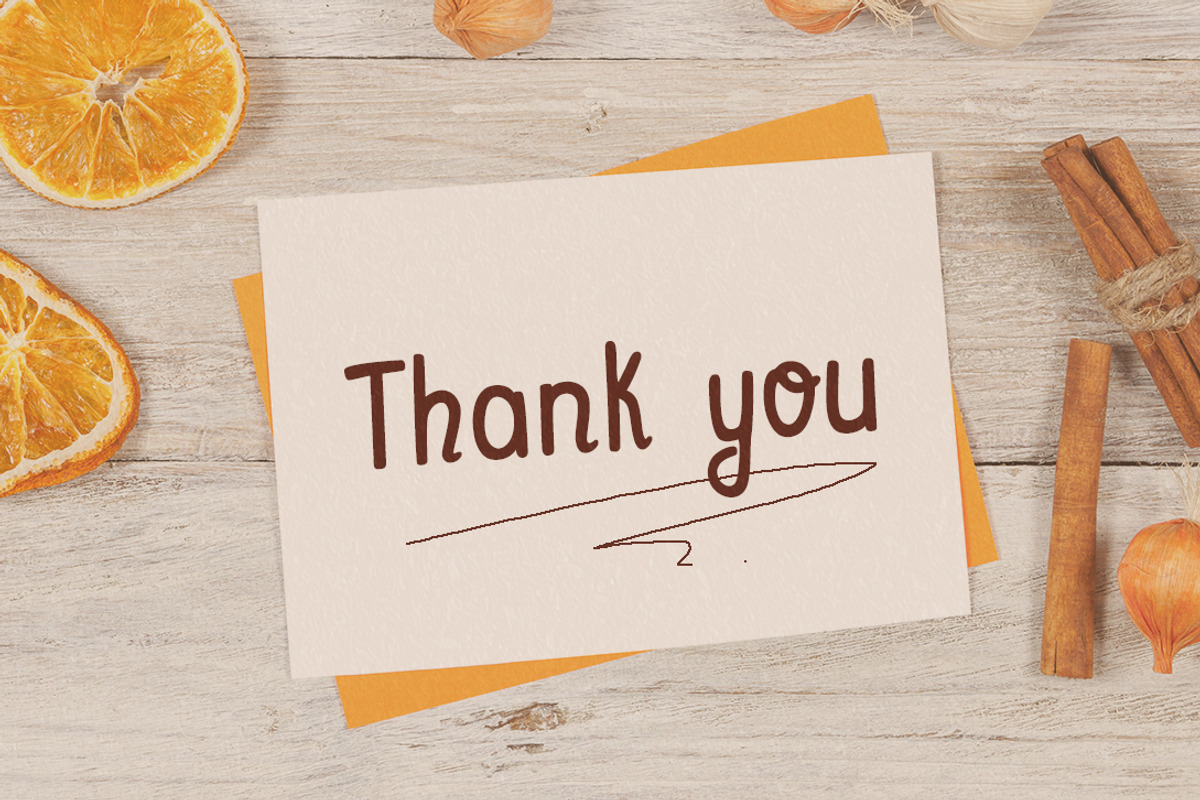
Annabee
My name is Annabee because I’m like a loud bee. You can literally hear me from far away when I write on your handwritten quotes, your promotional materials, even on your product packaging or other branding projects. I fit everywhere because I’m so cute and I have a simple design that makes your work look so natural.
- Upper and Lower case
- Special characters